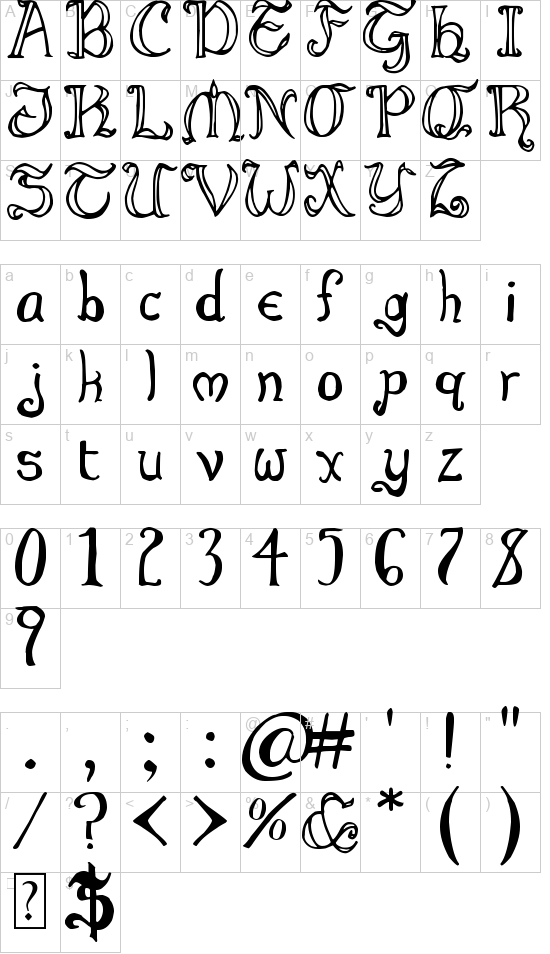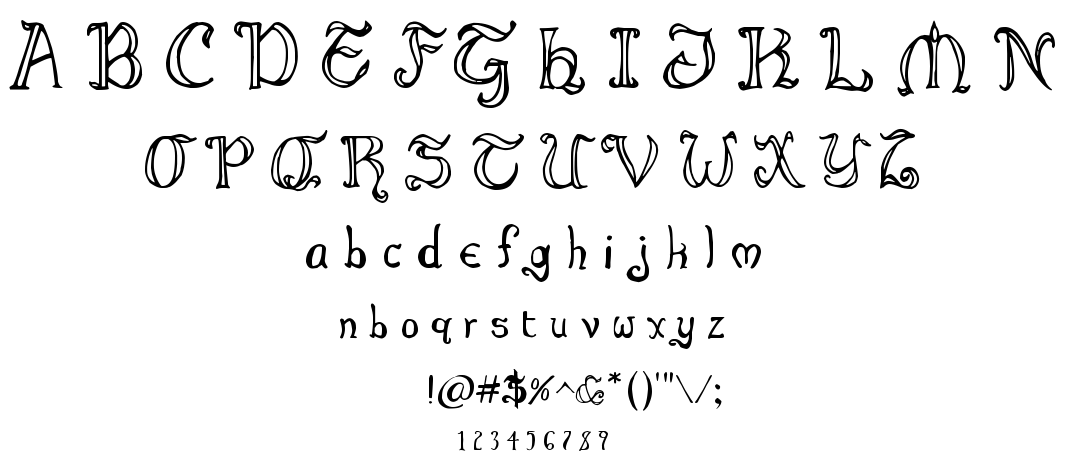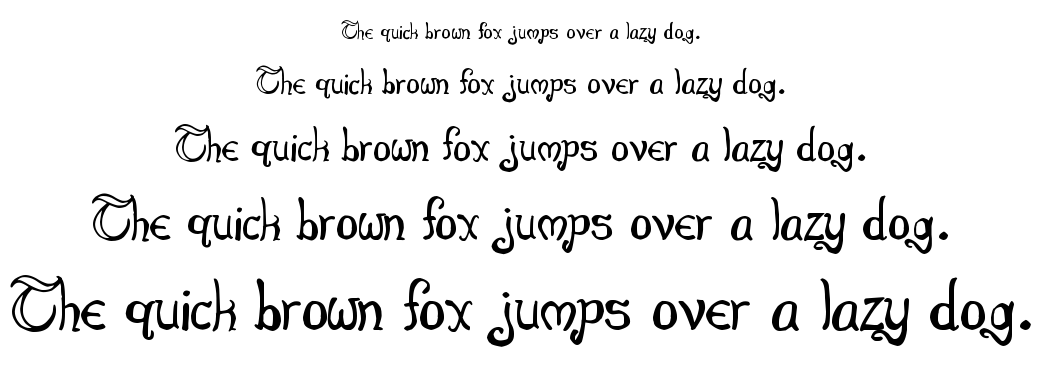
Part of the Throrian family of fonts – this is a modern gothic font with a medieval / fantasy / rennaisance flavor. Excellent for titling, tag lines, and desktop publishing applications.